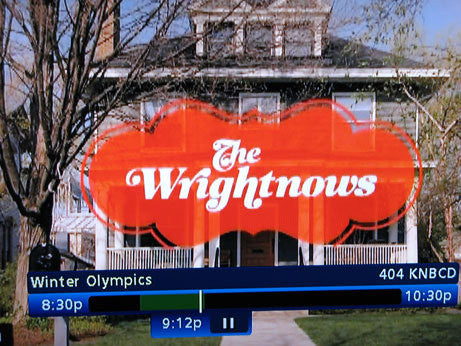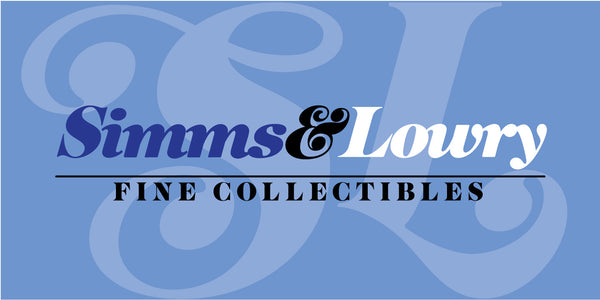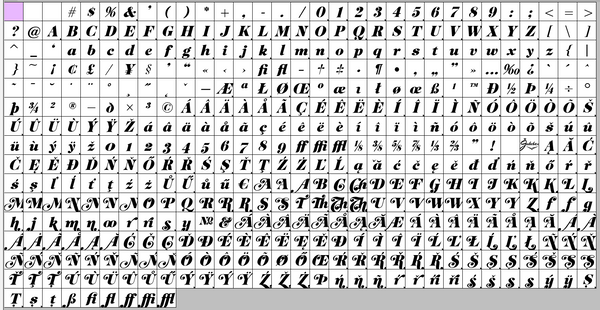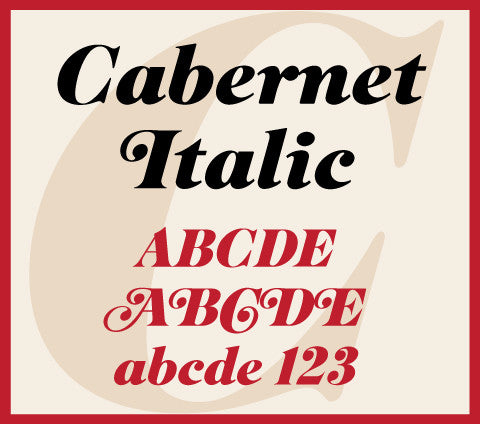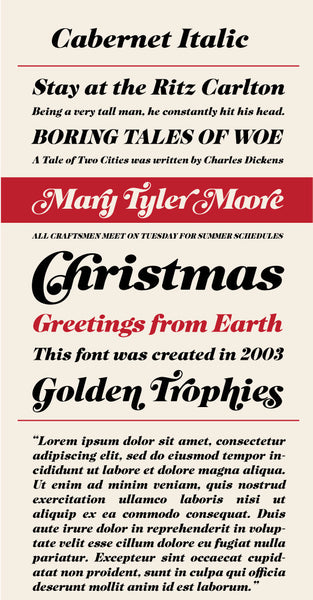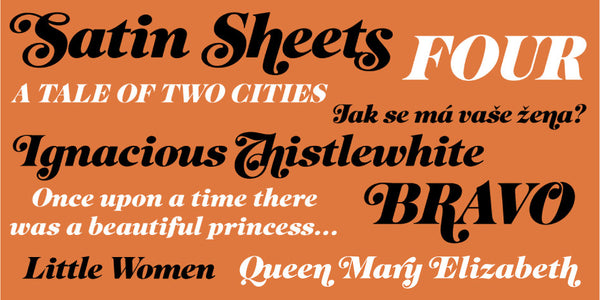
Cabernet Italic
Cabernet Italic is a classic "Caslon" style swash font with heavy contrast between thick and thin. It is a digital revival of an old photo-typositing face from the 1960s. The swash variants add charm and some retro whimsy to this typeface. The Italic face has even more swash variants than the regular font and offers the user a wide range of typographic possibilities.
Notable Use: Cabernet Italic was used in a TV commercial for Netflix during the 2014 Winter Olympics. It was the commercial featuring "The Wrightnows" family.